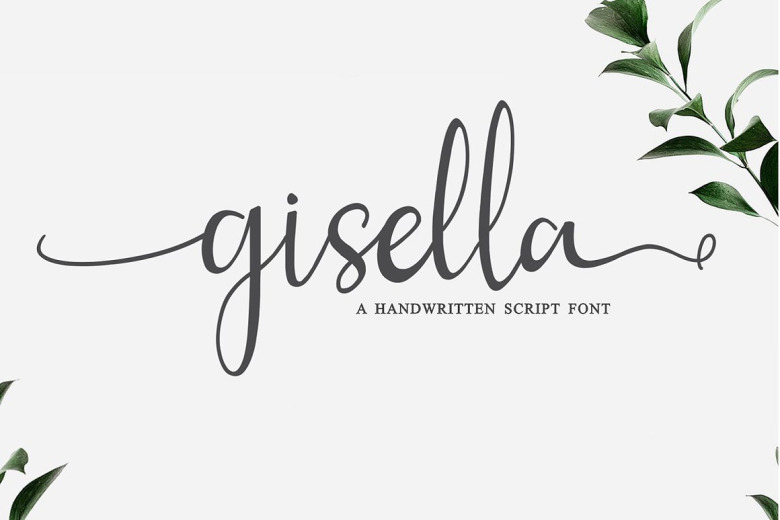
Gisella Handwritten Font
Gisella Font  a new natural script with a handwritten and script style make this font looks elegant, natural, stylish .
Gisella would perfect for invitation, logos & branding , photography, advertisements, watermark, social media posts, product packaging, product designs, label, wedding designs, stationery, special events or anything that need handwriting taste.
Gisella Handwritten Font